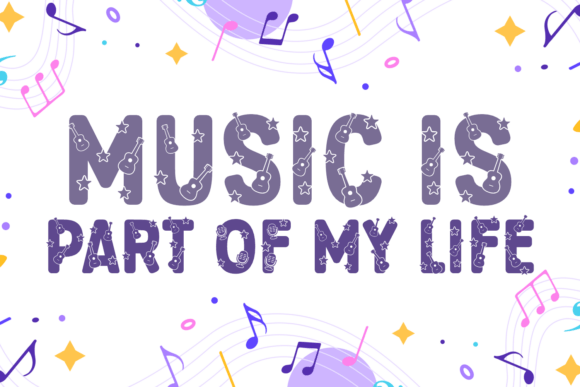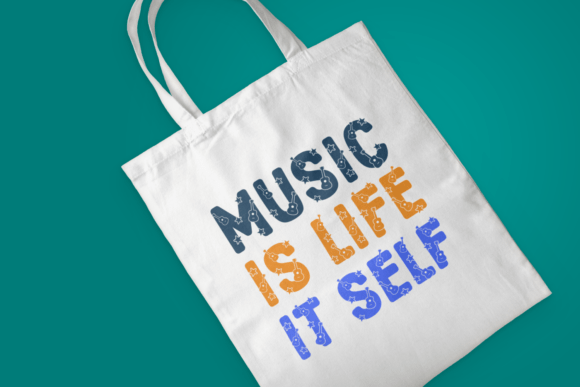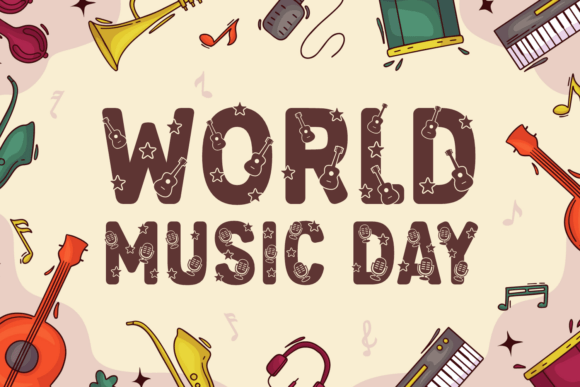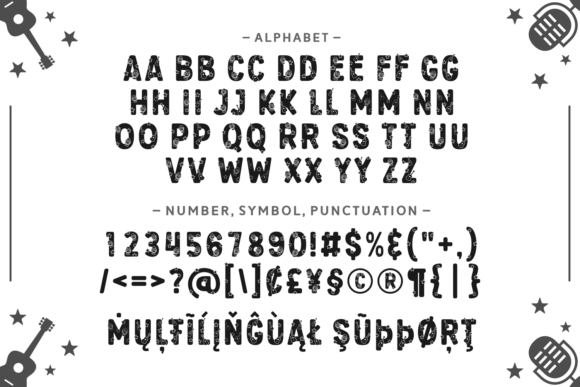
Rocking the Stage with Style
Remember the rush of excitement when you first discovered your favorite band? The thrill of live performances, the energy of the crowd, and the infectious beat of the music – it’s a moment that stays with you forever. As designers, we’re always on the lookout for ways to capture that same energy and excitement in our work.
Enter Band Super Font, the ultimate display font for music and performance themes. This ultra-bold, chunky typeface is designed to make a statement, with playful, stylized musical icons that add a touch of whimsy to any project. Whether you’re creating concert posters, band logos, or merchandise, Band Super Font is the perfect choice for designers who want to bring a little extra fun and flair to their work.
With its massive, rounded letterforms and celebratory aesthetic, Band Super Font is a valuable addition to any designer’s toolkit. It’s the perfect way to add some personality and style to your designs, and its versatility makes it a great choice for a wide range of projects.
Band Super Font Review
Overall, I’d say Band Super Font is an interesting addition to any design project. ✨
- Unique Style: The font’s eclectic mix of bold and playful lines does add a touch of whimsy to any text, making it perfect for certain niches or brands.
- High Legibility: Despite its unconventional design, the font is surprisingly easy to read, which is a huge plus in my book.
- Lack of Versatility: The font’s bold style can be overwhelming, making it difficult to use in situations where subtlety is key.
- Limited Character Set: The font’s character set is relatively small, which can make it difficult to use in longer blocks of text or for languages that require a wide range of characters.
Overall, I’d say Band Super Font is a solid choice for designers who are looking for something a bit unconventional. Just be sure to use it thoughtfully and in the right context to get the most out of it.
The Band Super Font is ideal for creating eye-catching headlines, titles, and logos. It’s also great for adding a touch of personality to your designs.
- Music festival or concert promotions
- Rock band logos and merchandise
- Music-themed party invitations